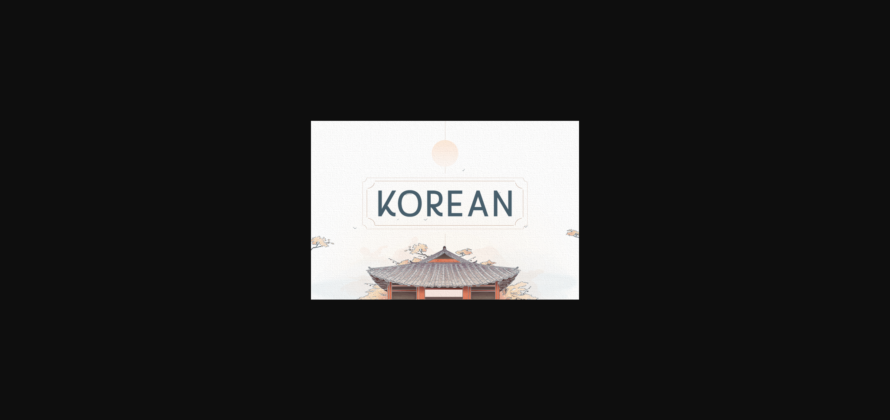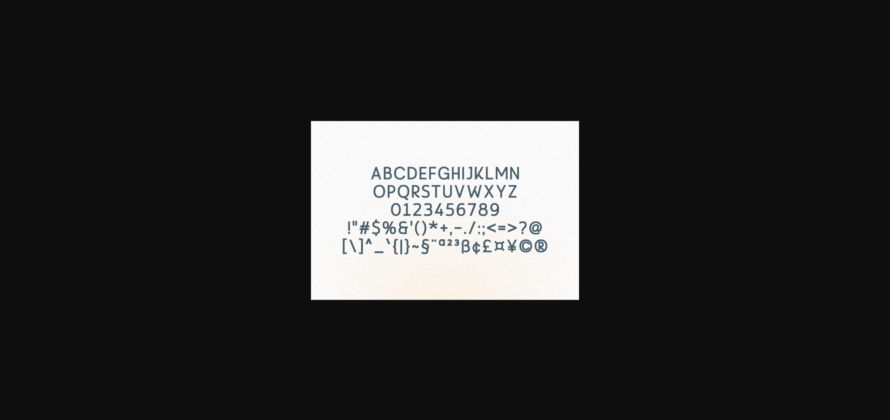
About Korean Font
Korean is a stunning sans serif font, great for complementing every project you’re working on. Use it to create beautiful headings, gorgeous invitations, stunning logos, and so much more!! Perfect for displays, headers, invitations, save-the-dates, weddings, and so much more!